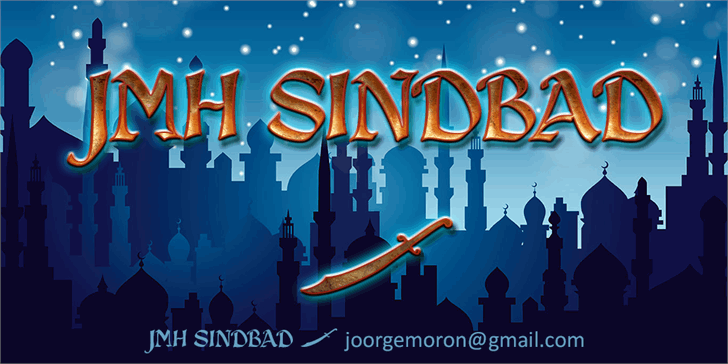
Free JMH Sindbad Font
Download and enjoy this free jmh sindbad font. Cool typeface to showcase your designs in a modern way. Font Space has created this amazing and beautiful free font. This is absolutely cool font so you can easily make world-class designs.